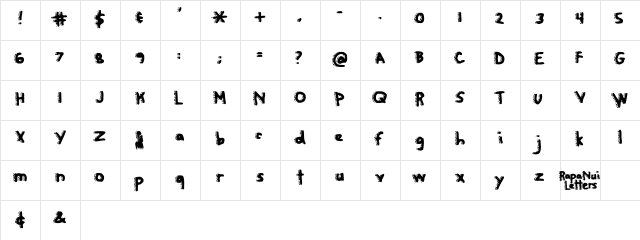
RapaNuiLetters Regular
Design Context for RapaNuiLetters Typeface
RapaNuiLetters is a composed and adaptable typeface that performs quietly and consistently across a wide range of design contexts.